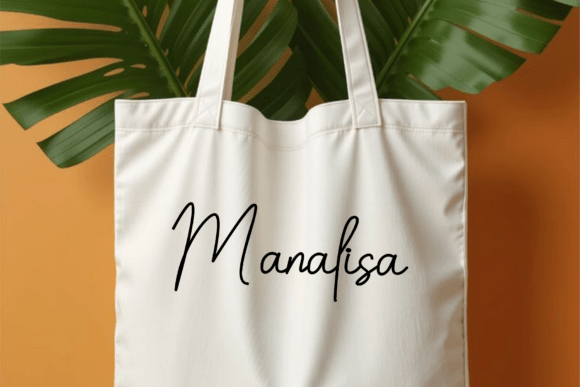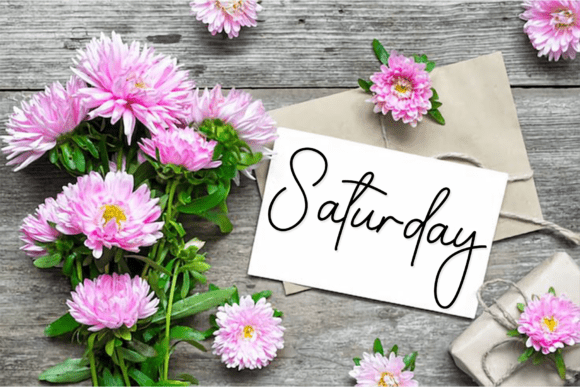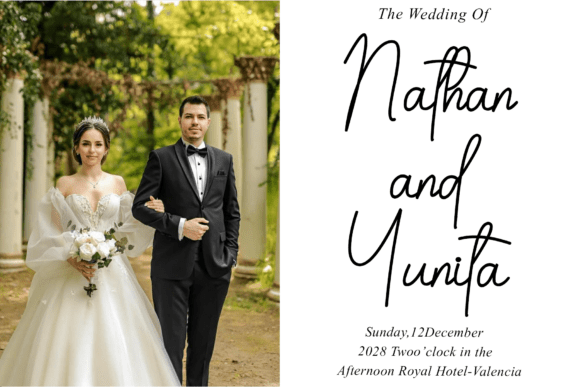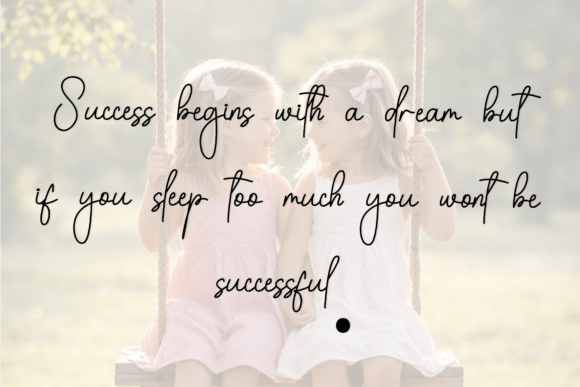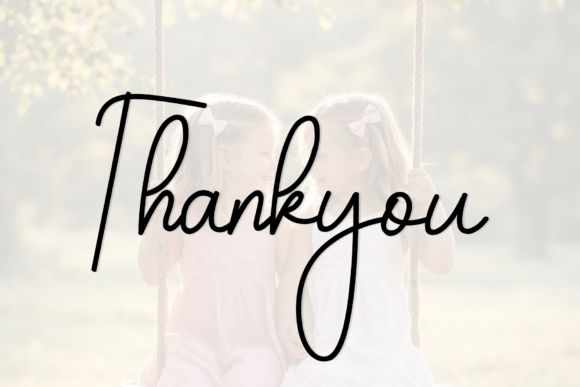
Discovering the Perfect Handwritten Font for Your Next Project
As designers, we’ve all been there – staring at a blank page, trying to find the perfect font to bring our creative vision to life. It’s like searching for the perfect shade of blue to match a breathtaking sunset. And then, suddenly, it hits you – the perfect font that makes your design pop. For me, that font is the Bestie Kids Font, a unique and professional handwritten collection that adds a touch of clarity and crisp elegance to any project.
This modern handwritten font is designed to evoke a sense of freshness and sophistication, making it ideal for travel photography, outdoor gear branding, and web design. Its clean and approachable style is not only aesthetically pleasing but also versatile, making it a valuable addition to any designer’s toolkit. Whether you’re working on a new project or looking to refresh your brand’s visual identity, the Bestie Kids Font is definitely worth considering.
Bestie Kids Font Key Features
- Font Family: Bestie Kids
- Unique Characteristics: Whimsical, playful, and fun, ideal for children’s books, educational materials, and kid-friendly branding
- Font Style: Hand-drawn, cursive, and script
- Language Support: Multilingual support for Latin-based languages
Bestie Kids Font Review
Overall, I found the Bestie Kids Font to be a cute and playful option for kids’ designs. Here are some things that stood out to me:
- ✨ The font is highly customizable, allowing for a wide range of color options and font sizes.
- ✨ The font includes a variety of special characters, such as emojis and symbols, which can add a fun touch to designs.
- ✨ The font is highly legible, even at smaller font sizes, making it suitable for use in a variety of applications.
However, I did encounter a few limitations with the Bestie Kids Font:
- ⚠️ The font can feel a bit overly simplistic at times, which may not be suitable for more complex or professional designs.
- ⚠️ The font is not as versatile as some other options, which may limit its use in certain applications.
Overall, I would recommend the Bestie Kids Font for use in casual, fun designs for kids. While it has its limitations, it’s a great option for those looking for a playful and customizable font.
To get the most out of the Bestie Kids Font, try:
- Using it in combination with bold or italic styles to add emphasis.
- Adjusting the font size to create visual hierarchy.
- Pairing it with other playful fonts to create a unique look.
The Bestie Kids Font is perfect for:
- Playful branding and marketing materials.
- Fun and creative projects, such as scrapbooking or card making.
Alternatives to Bestie Kids Font
Lobster Font is a fun, cursive font perfect for adding a playful touch to designs. It is ideal for use in children’s products, party invitations, and other creative projects. Compared to Bestie Kids Font, Lobster has a more whimsical feel and is better suited for bold, eye-catching headlines.
Alex Brush Font is a elegant, handwritten font great for adding a touch of sophistication to designs. It is suitable for use in branding, packaging, and advertising. Unlike Bestie Kids Font, Alex Brush has a more refined feel and is better suited for use in more mature or high-end projects.
Great Vibes Font is a modern, handwritten font perfect for adding a relaxed, casual feel to designs. It is ideal for use in social media graphics, blog posts, and other online content. Compared to Bestie Kids Font, Great Vibes has a more laid-back feel and is better suited for use in more casual or conversational projects.
Carolyna Pro Font is a elegant, handwritten font great for adding a touch of luxury to designs. It is suitable for use in high-end branding, packaging, and advertising. Unlike Bestie Kids Font, Carolyna Pro has a more refined feel and is better suited for use in more mature or high-end projects, making it ideal for use in fashion, beauty, or luxury goods branding.
Bestie Kids Font Project Ideas
Project 1: Customized Kids Party Invitations
Create a personalized kids party invitation using Bestie Kids Font. This playful font is perfect for a fun and energetic party theme.